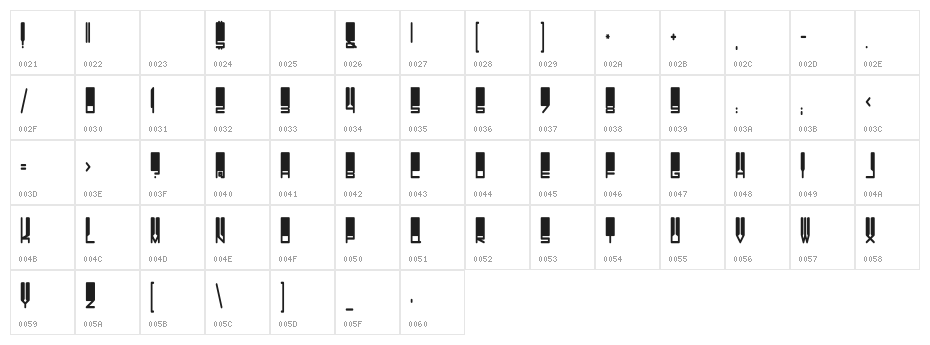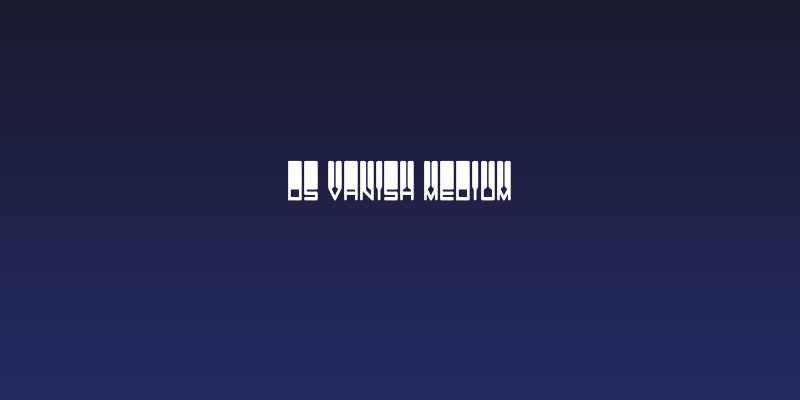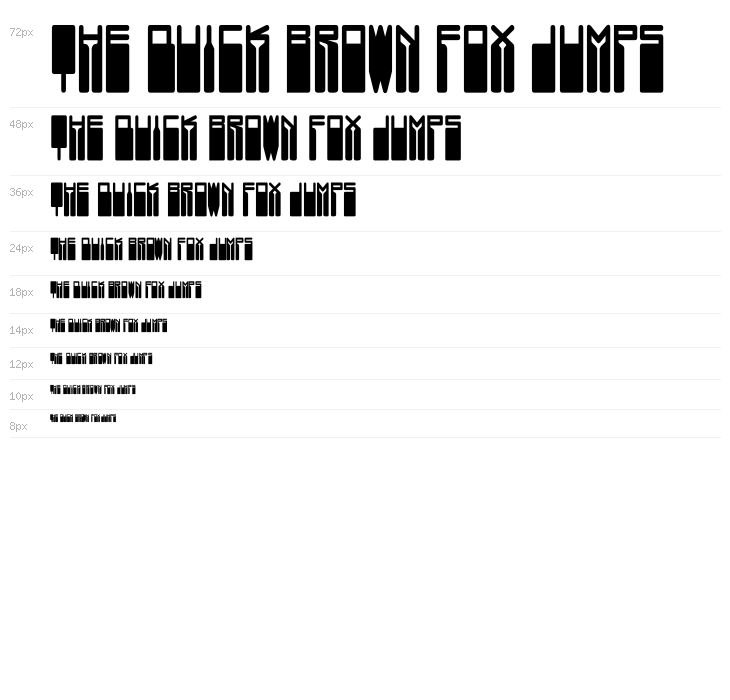
DS Vanish Medium Font
DS Vanish Medium Description
This font features a bold, geometric design with a futuristic and industrial feel. The characters are constructed with thick, block-like shapes that create a strong visual impact. The uppercase and lowercase letters maintain a consistent style, with sharp angles and a uniform thickness throughout. The numbers and special characters follow the same design principles, ensuring a cohesive look across all elements. The font's unique style makes it stand out, ideal for projects that require a modern and edgy aesthetic.
| Proposed Projects | Ideal for branding, posters, album covers, and any project needing a modern, edgy look. |